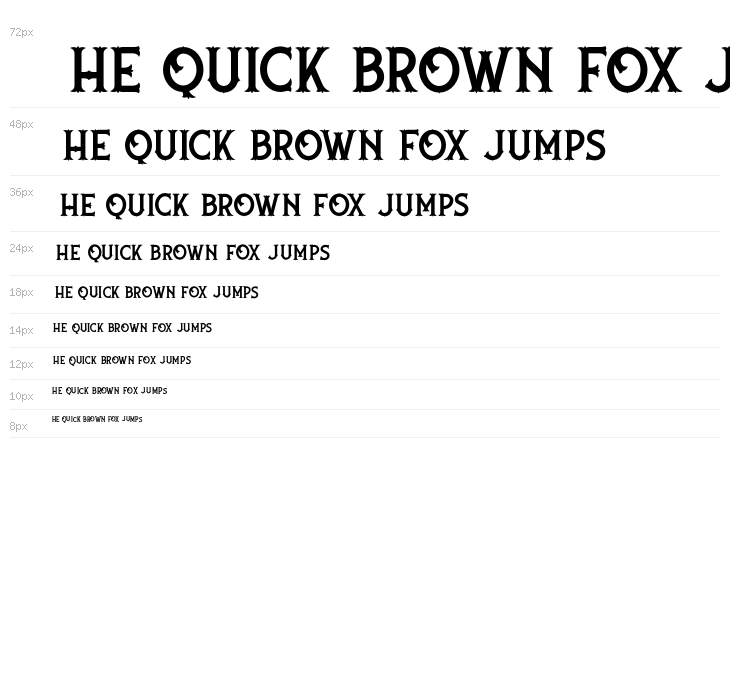
nufcedDEMO Font
nufcedDEMO Description
This font features a bold and dramatic style with sharp, pointed serifs and a strong presence. The characters are well-defined with a gothic influence, showcasing intricate details that give it a unique and striking appearance. The uppercase letters are particularly prominent, with a consistent height and width that provide a balanced look. The overall design is reminiscent of medieval or fantasy themes, making it suitable for projects that require a touch of elegance and mystery. The spacing between characters is normal, allowing for readability while maintaining its decorative flair.
| Overall Style | Gothic, Decorative |
| Proposed Projects | Ideal for fantasy book covers, movie posters, themed event invitations, and logo designs that require a gothic or medieval touch. |